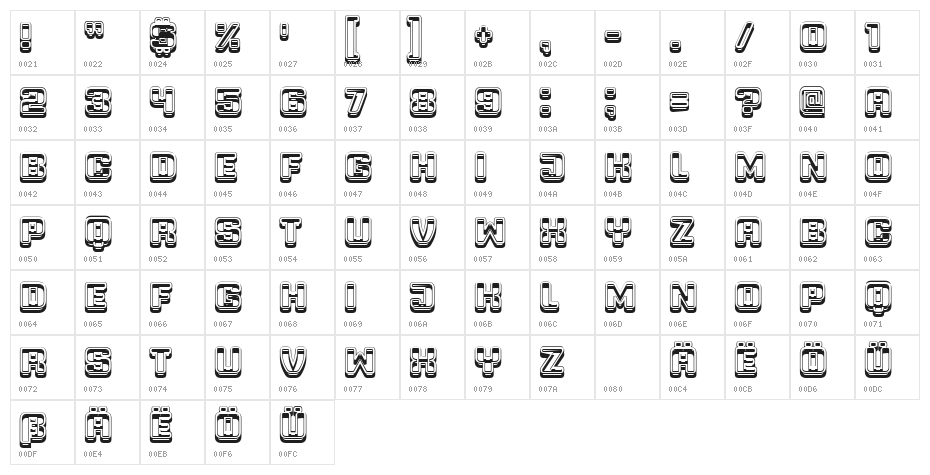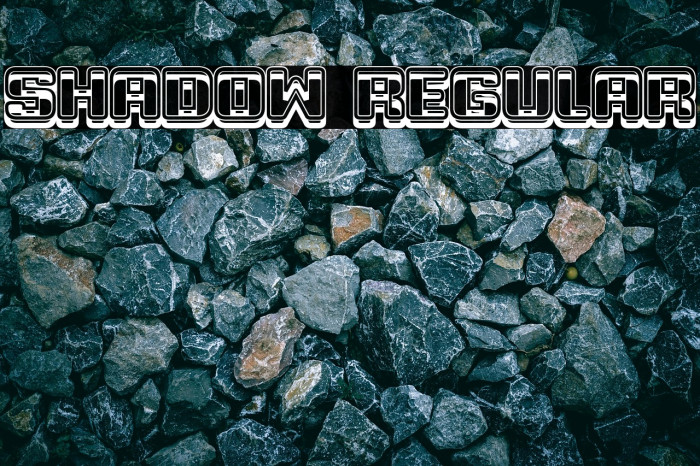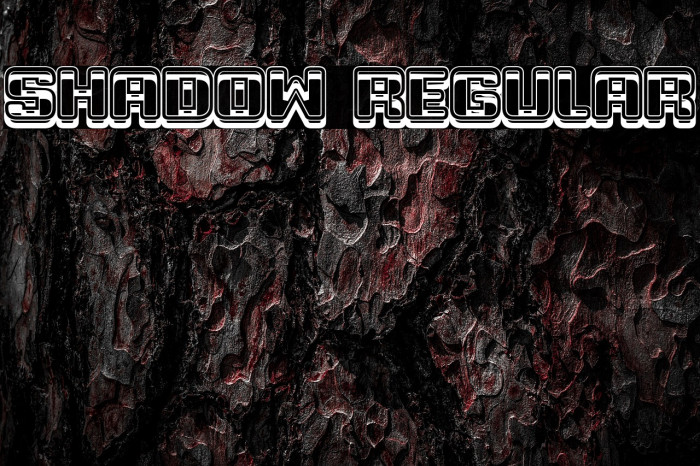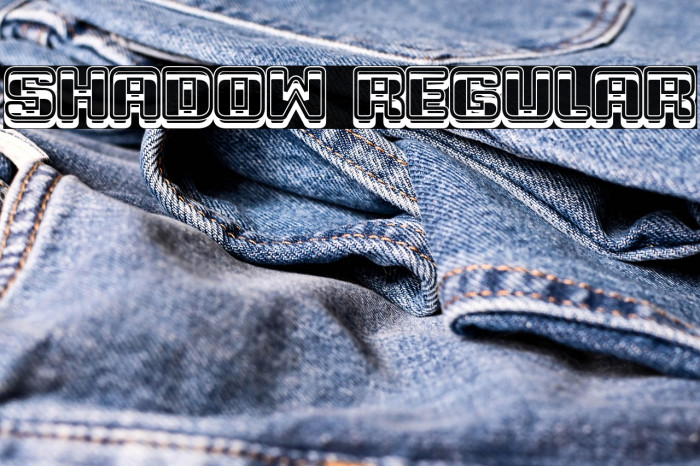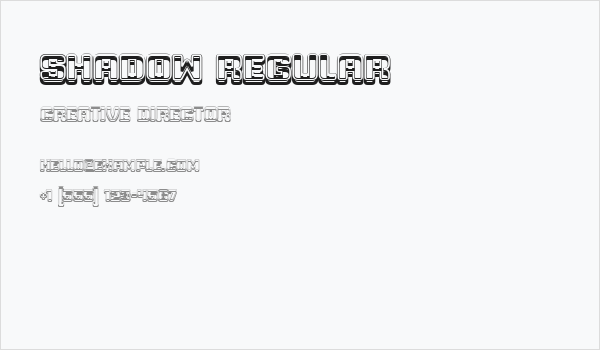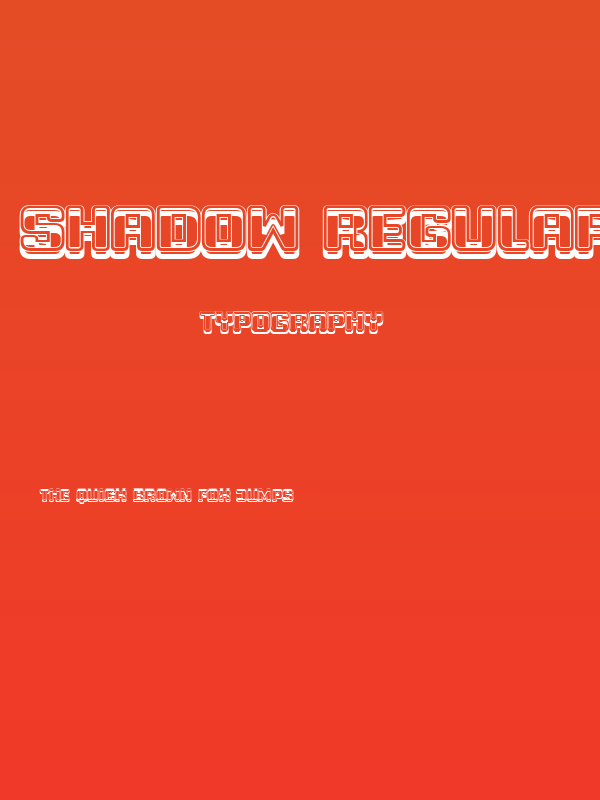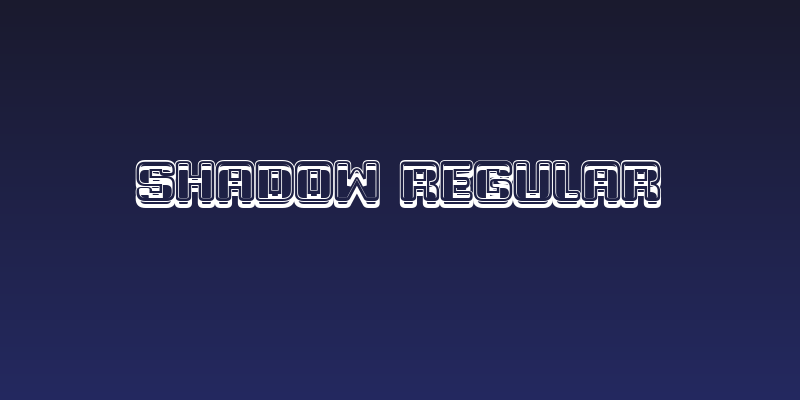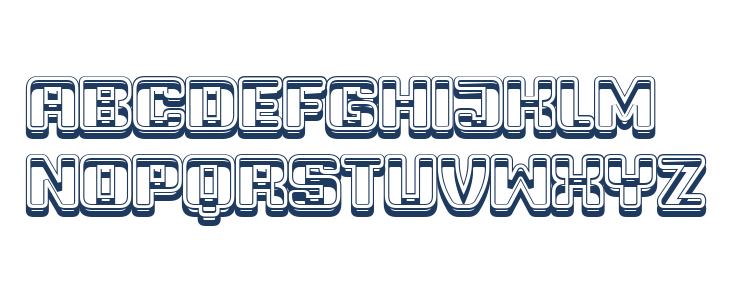
Shadow Regular Font
Shadow Regular Description
This font features a bold, three-dimensional appearance with a shadow effect that gives it a striking and impactful look. The characters are uppercase and have a geometric, block-like structure, which is enhanced by the shadow that adds depth and dimension. The design is consistent across letters and numbers, maintaining a uniform style that is both modern and retro. The font's boldness and shadow effect make it ideal for eye-catching designs, where visibility and impact are crucial. It is particularly suited for projects that require a strong visual presence.
| Proposed Projects | Ideal for posters, headlines, logos, and any design needing a bold, eye-catching typeface. |